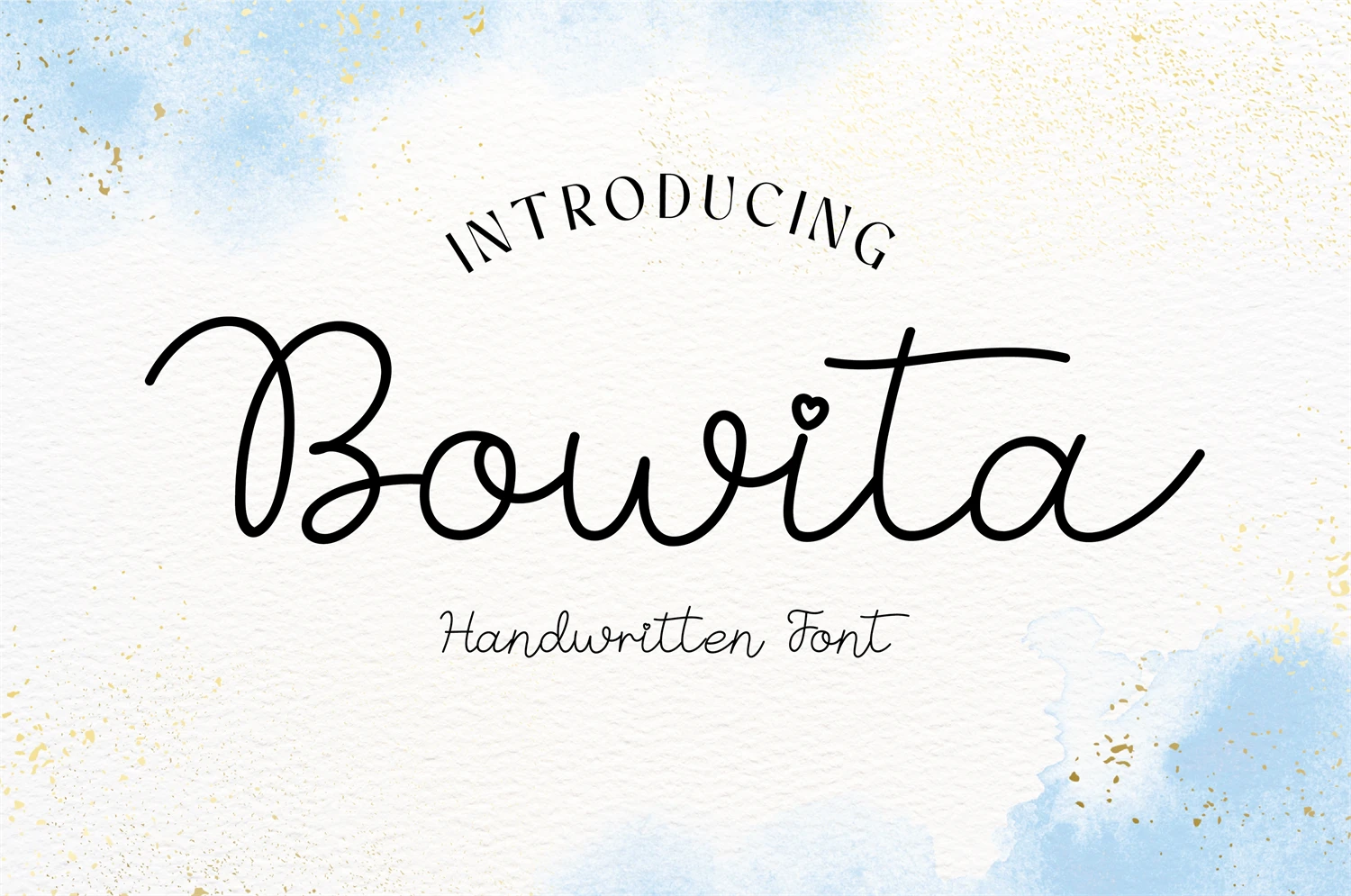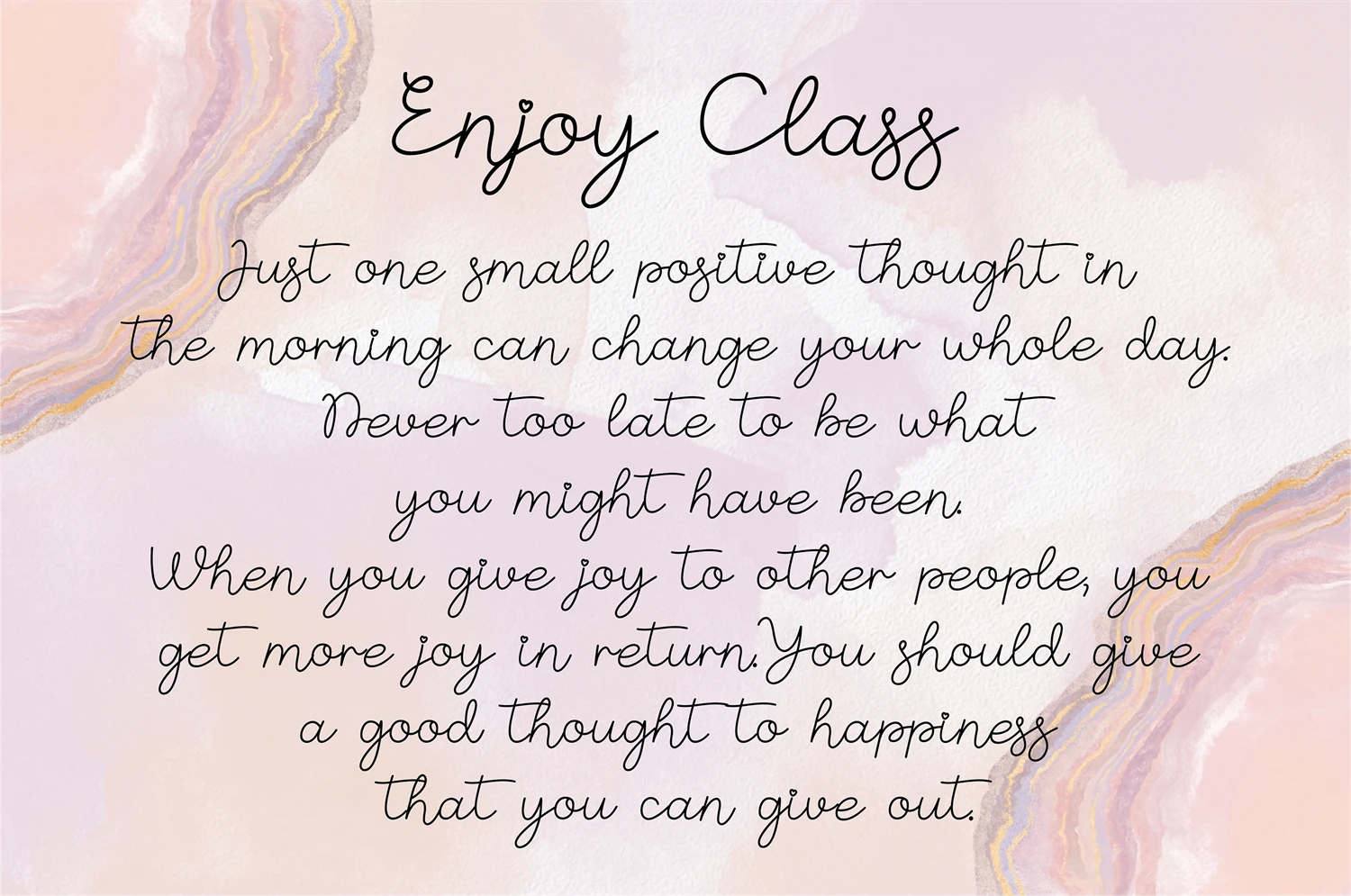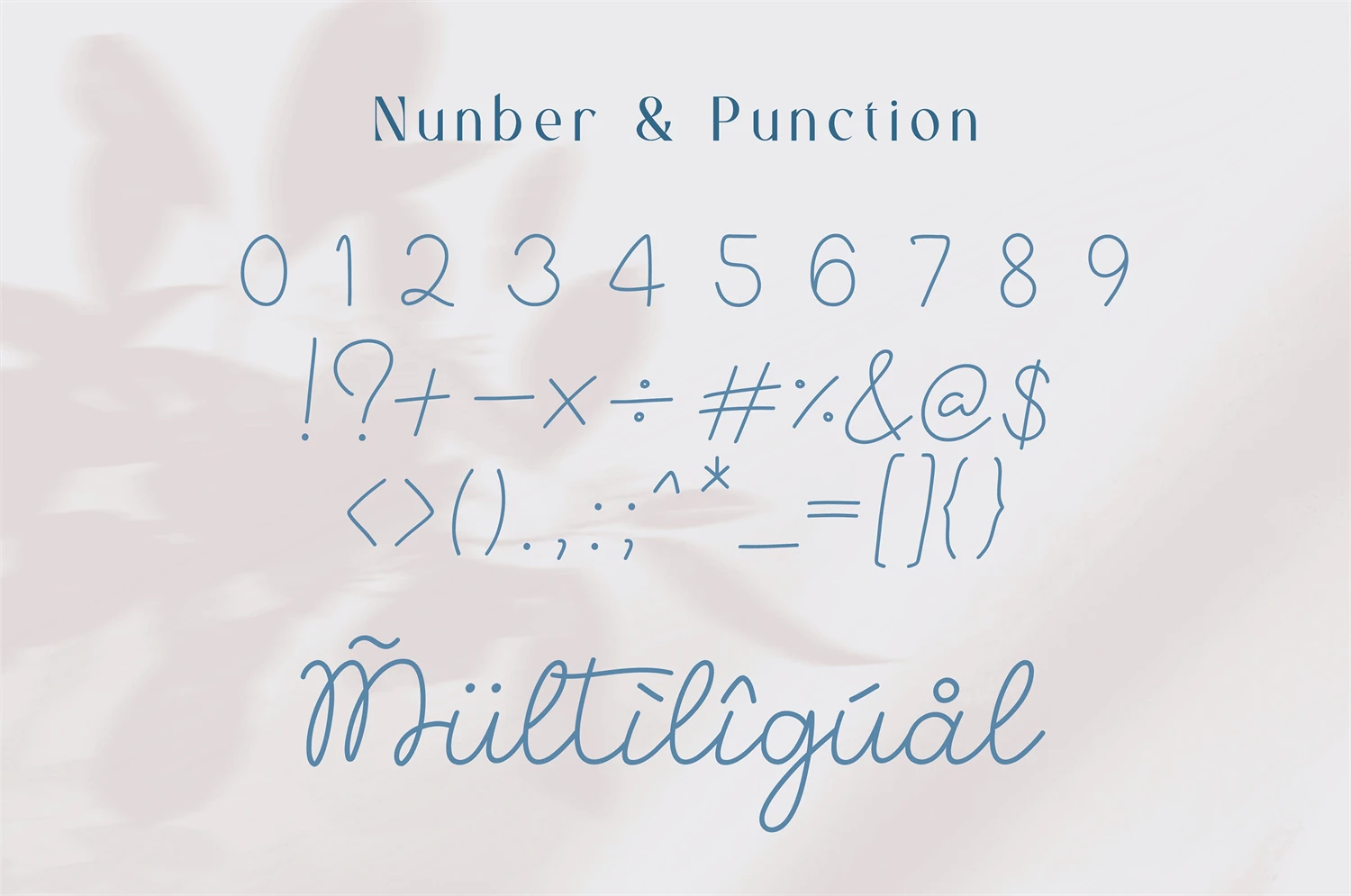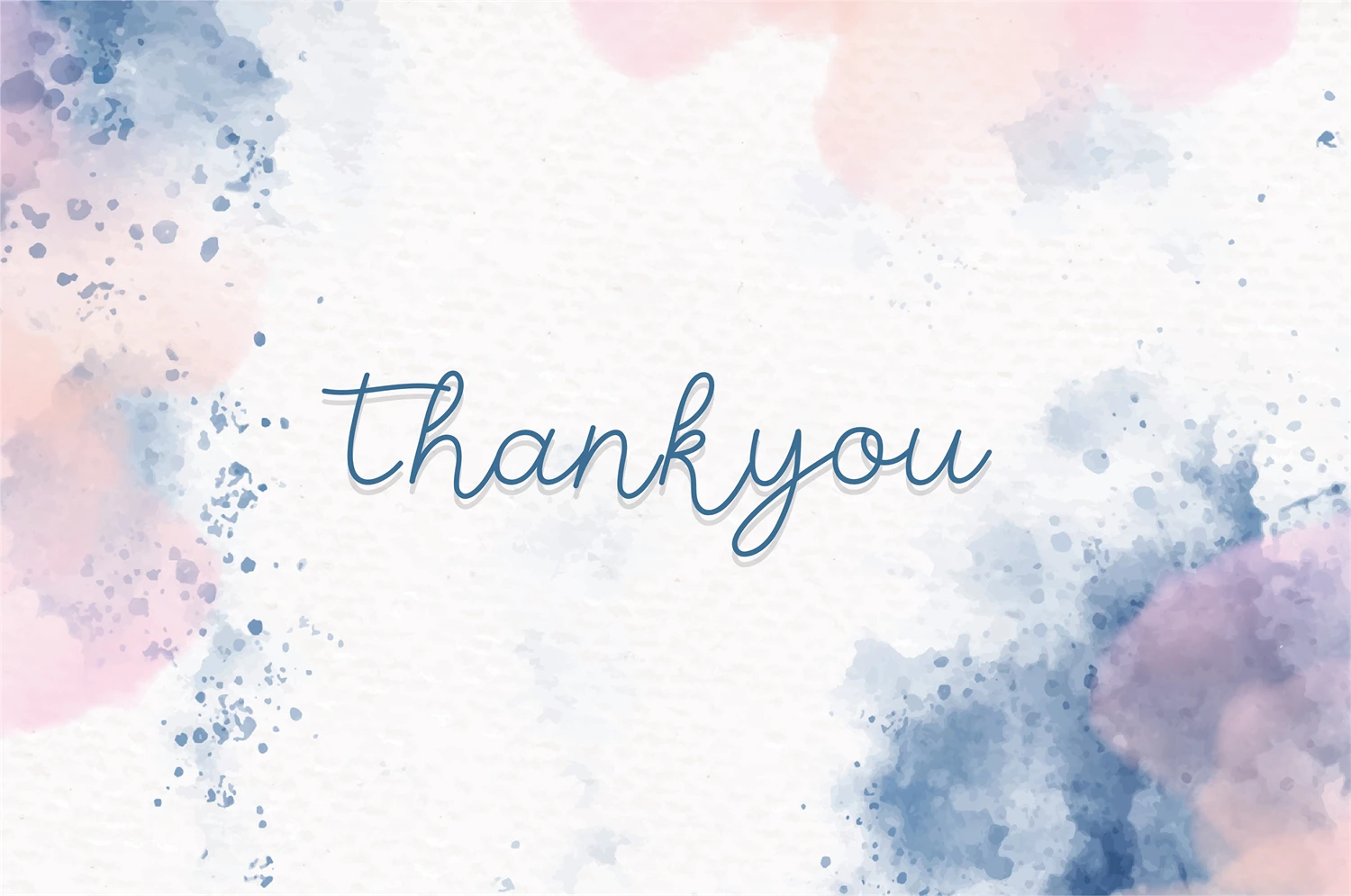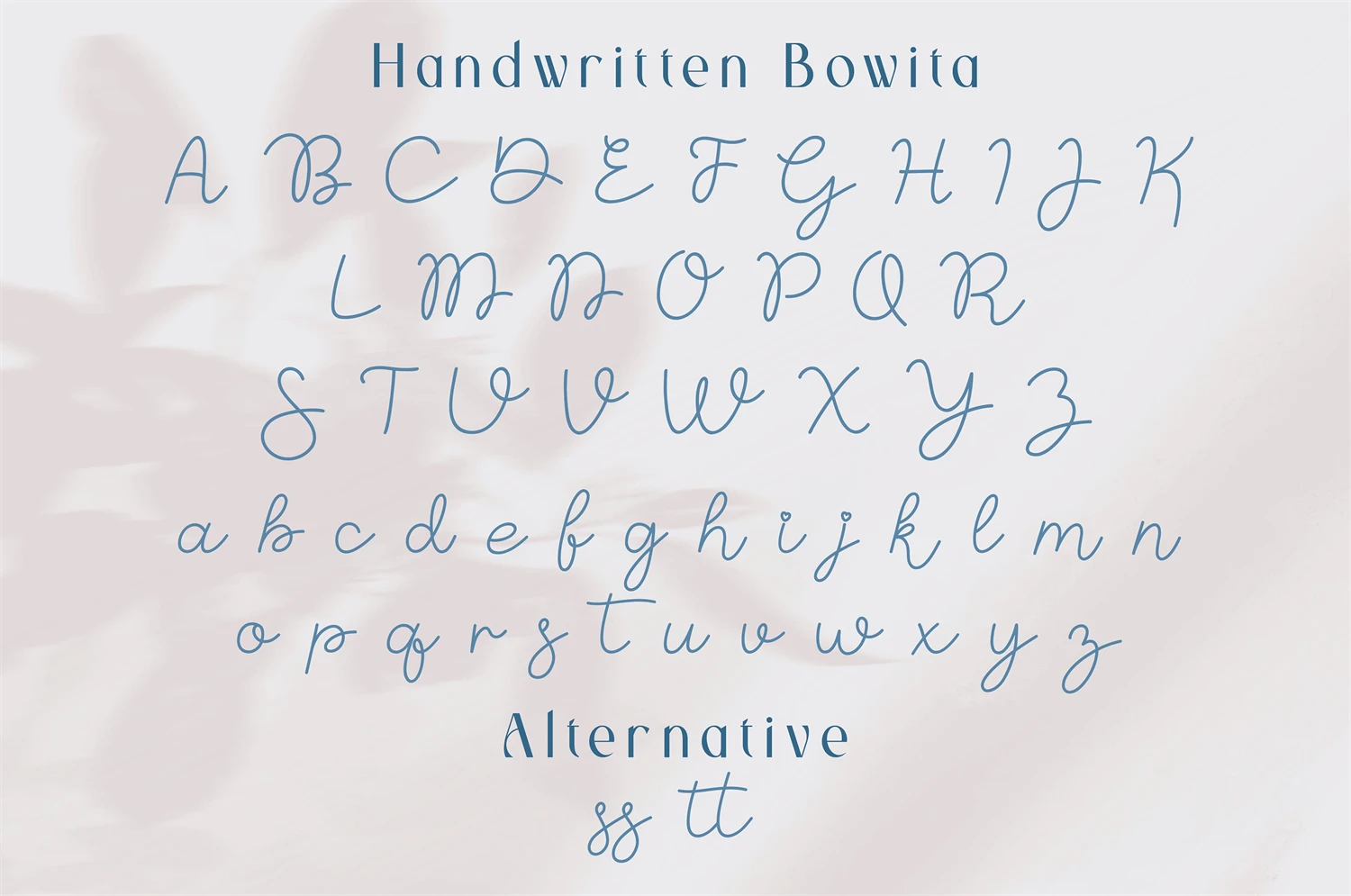
Bowita is a handwritten font. Friendly and minimal easy to use with smooth character. Perfect for school projects, writing an invitation, or ornament decoration.